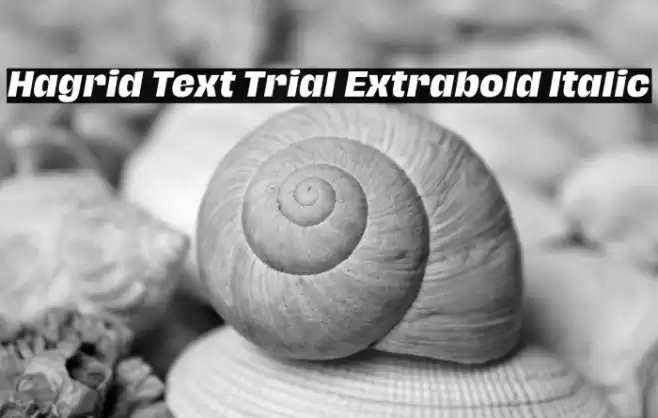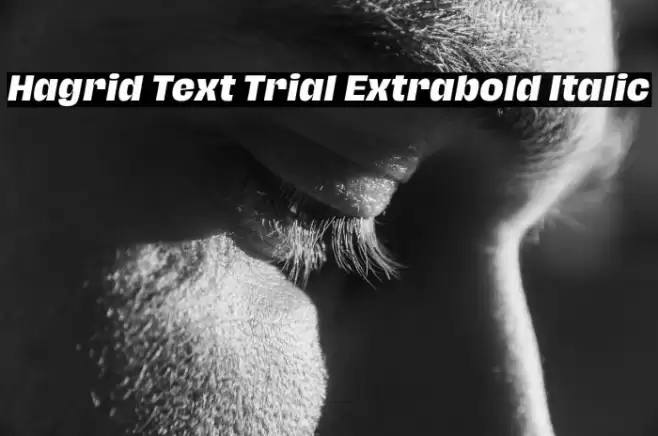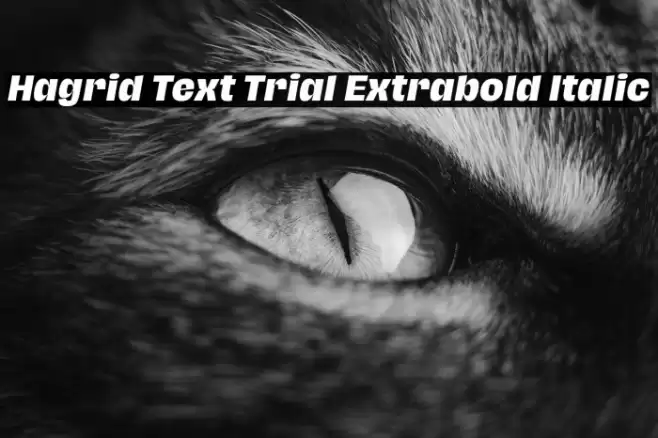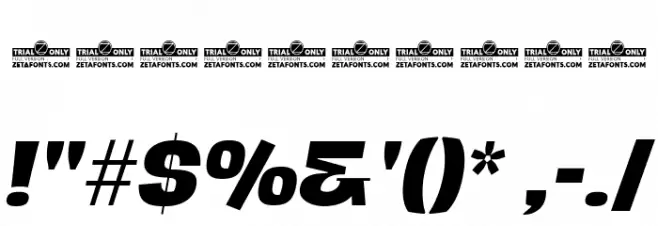
Hagrid Text Trial Extrabold Italic Font
Hagrid Text Trial Extrabold Italic Description
This font presents a bold and dynamic appearance with a strong italic slant, giving it a sense of movement and energy. The characters are thick and robust, making them highly visible and impactful. The uppercase letters are particularly striking, with a consistent weight that emphasizes their presence. The lowercase letters maintain the same boldness, ensuring readability and uniformity across different text sizes. The numbers and special characters follow the same design principles, offering a cohesive look throughout. This font's bold and italic nature makes it suitable for attention-grabbing headlines and titles.
A bold, italic font with a dynamic and impactful style from Uncategorized fonts.